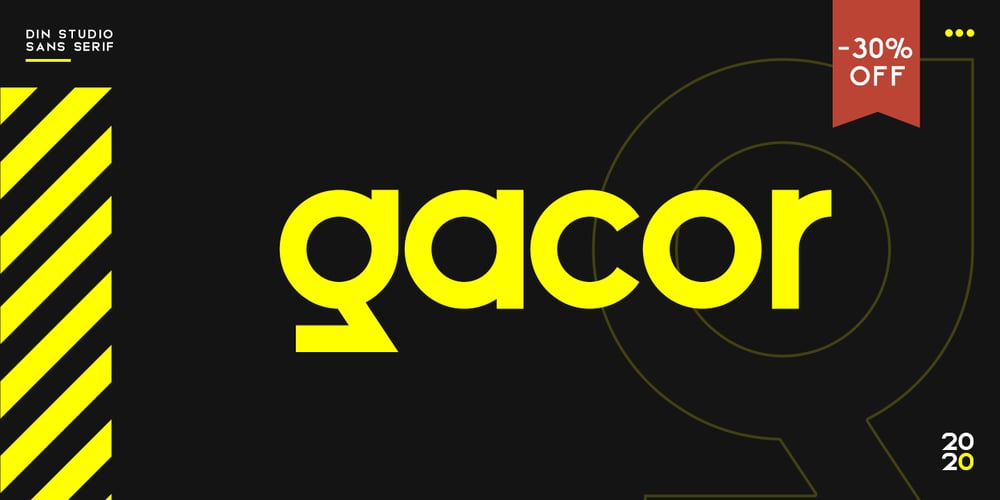
Gacor Font Family was designed by Donis Miftahudin and published by Din Studio. Gacor contains 1 styles and family package options. Gacor is urban sans serif font. Made for any professional project branding. It is the best for branding, printing, and quotes. Every letter has a unique and beautiful touch.Features: PUA Encoded Multilingual Support Numerals and Punctuation Thank you for downloading premium fonts from Din Studio